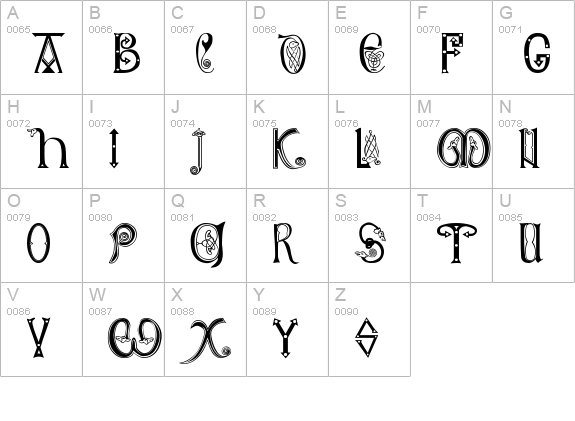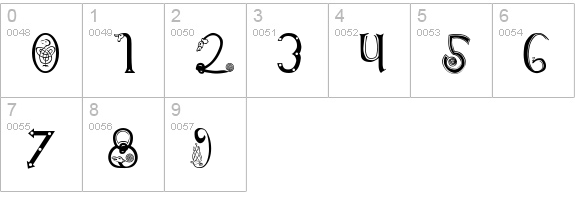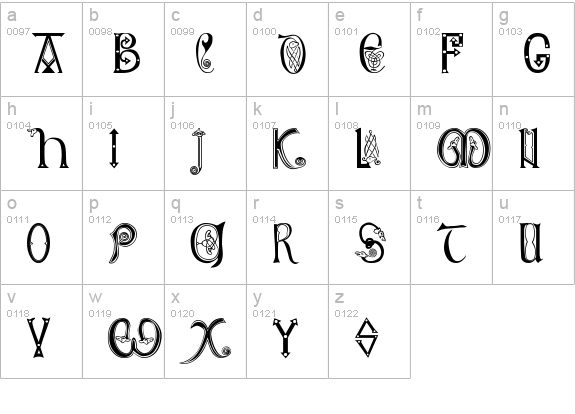
The Anglo-Saxon font, inspired by the elegant calligraphy of the 8th century, exudes a sense of ancient charm and sophistication. With its intricate and ornate letterforms, this typeface captures the essence of the Anglo-Saxon period with a modern twist. Each character is meticulously crafted to reflect the artistic craftsmanship of the time, making it a perfect choice for historical projects, invitations, and branding with a touch of old-world flair. Best of all, the Anglo-Saxon font is freely available to download at FontsMarket.com, allowing you to effortlessly add a touch of historical elegance to your designs. Embrace the beauty of the past with this exquisite typeface and let your creativity flow with its timeless appeal.